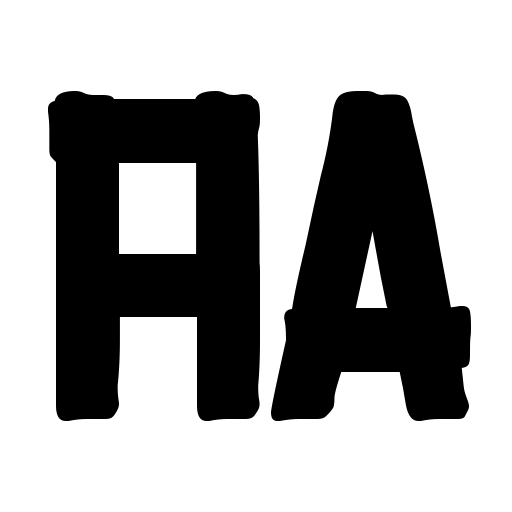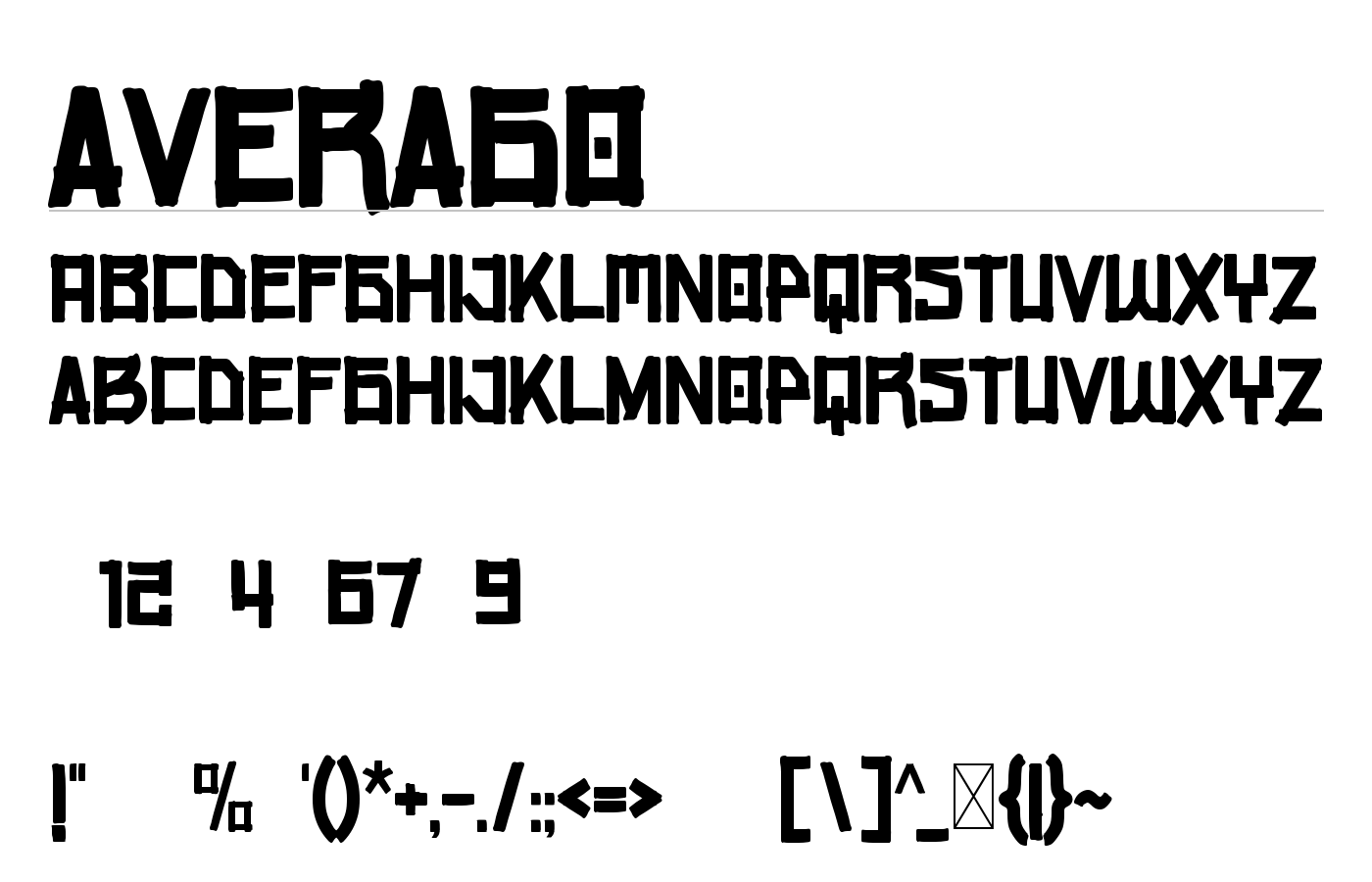
Averago is a bold, condensed sans serif font with a rugged, hand-carved appearance that gives it strong character and visual impact. Its irregular stroke endings and slightly uneven shapes create a playful yet edgy feel, making it ideal for creative branding, posters, and headline use where a unique, handcrafted vibe is desired. This font works well for designs that want to convey energy, originality, and a slightly vintage or artisan touch.
averago Font
About averago Font
| Font family | averago Font |